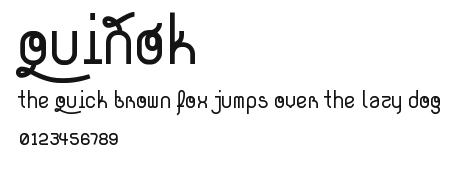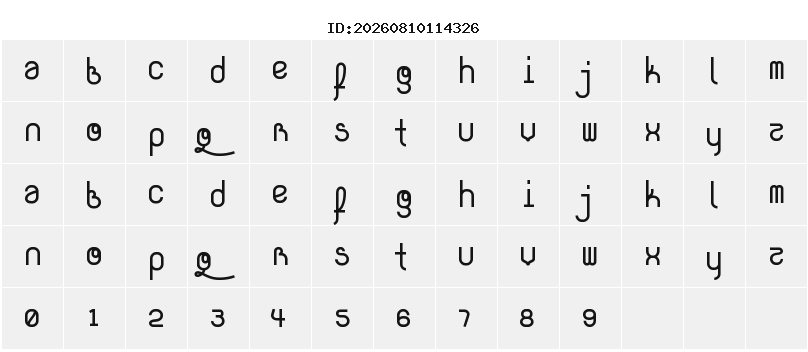
quiñók.ttf is a modern, elegant sans-serif font designed for ultimate readability and visual harmony. Perfect for branding, headlines, web design, and print materials.